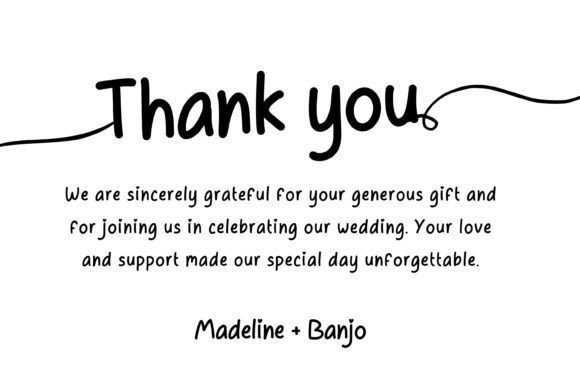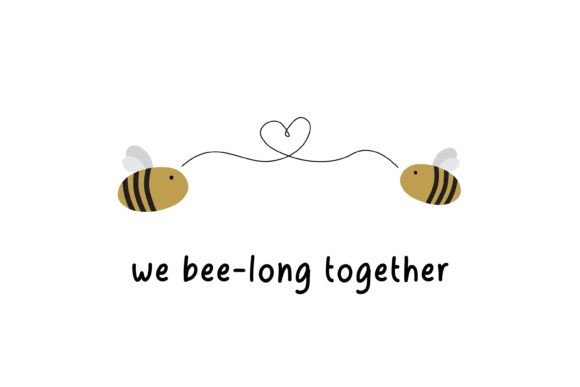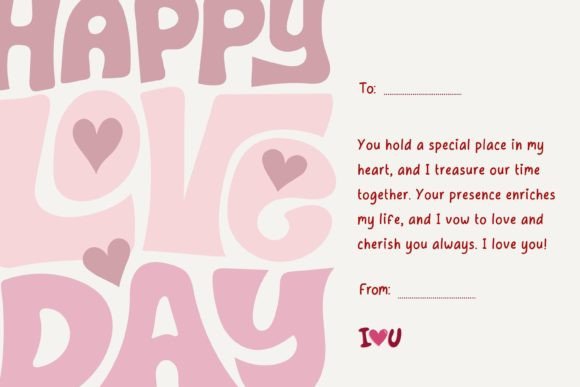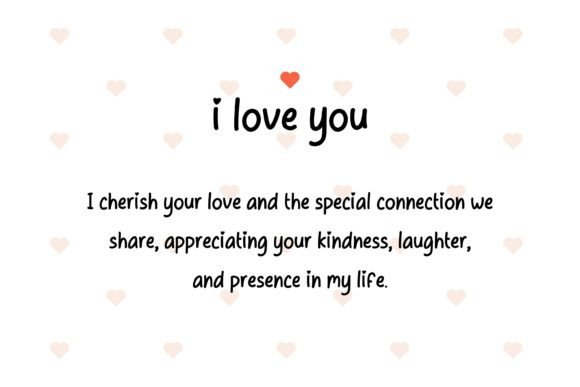
Introducing Crafty Olivia Font: The Ultimate Blend of Adorable Charm and Effortless Elegance
Imagine an extraordinary blend of adorable charm and effortless elegance – that’s Crafty Olivia. This one-of-a-kind font possesses a certain special touch, carefully designed to transform your creations with an irresistible allure. Embellish your designs with Crafty Olivia and watch them evolve from simple to simply extraordinary. It’s the perfect choice to add an irresistibly cute yet sophisticated flair to your artistic ventures.
The Story Behind Crafty Olivia
Crafty Olivia is more than just a font – it’s a design experience. Crafted with love and attention to detail, this font is designed to bring a touch of whimsy and sophistication to your designs. Whether you’re a seasoned designer or a crafter looking to elevate your project, Crafty Olivia is the perfect companion to help you achieve your creative vision.
What Makes Crafty Olivia Special?
- Unique Character Set: Crafty Olivia boasts a unique character set that is both playful and elegant. Each letter is carefully designed to convey a sense of charm and sophistication, making it perfect for a wide range of design projects.
- Versatile: This font is incredibly versatile, making it suitable for various design applications, from digital projects to print materials. Whether you’re working on a logo, branding, social media graphics, or craft projects, Crafty Olivia adapts seamlessly.
- Easy to Read: Despite its decorative nature, Crafty Olivia remains highly legible, ensuring that your message is conveyed clearly and effectively.
- Customizable: Take your designs to the next level by experimenting with different sizes, colors, and styles. Crafty Olivia is designed to be customized, allowing you to make it your own.
Crafty Olivia is an excellent choice for designers and crafters looking to add a personal touch to their projects. Whether you’re creating:
- Branding Materials: Elevate your brand with a font that exudes charm and sophistication.
- Social Media Graphics: Stand out on social media with eye-catching graphics that showcase your personality.
- Craft Projects: Add a touch of elegance to your handmade crafts, such as cards, scrapbooking, and DIY projects.
- Digital Products: Create stunning digital products, such as printable art, planners, and journals.